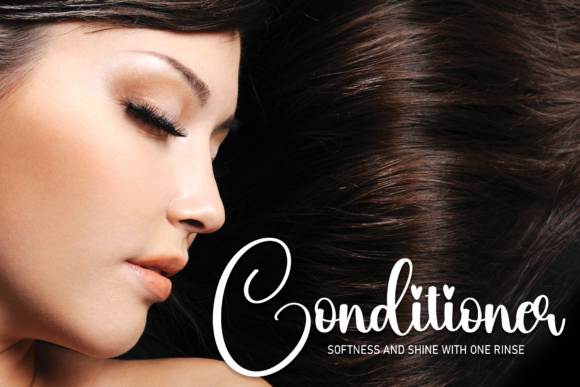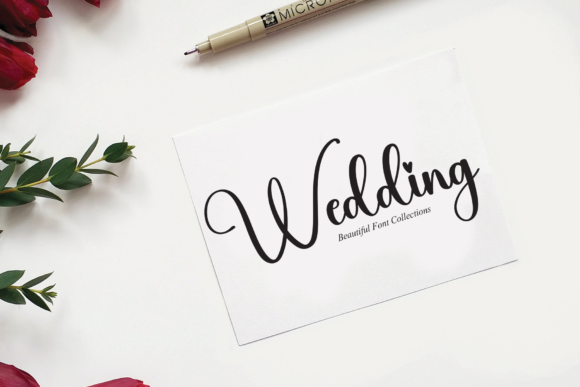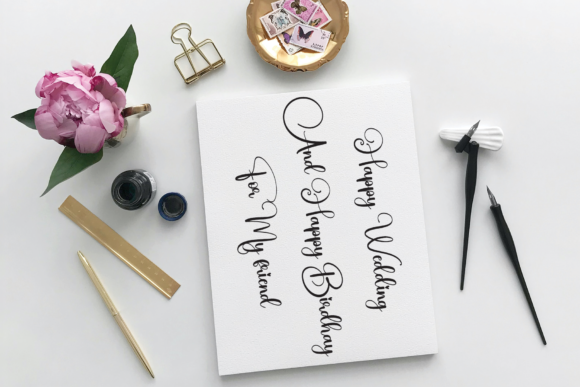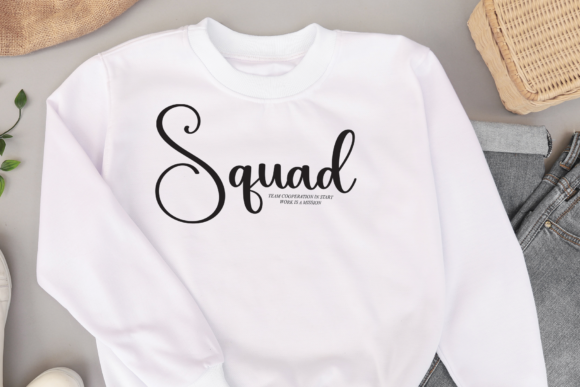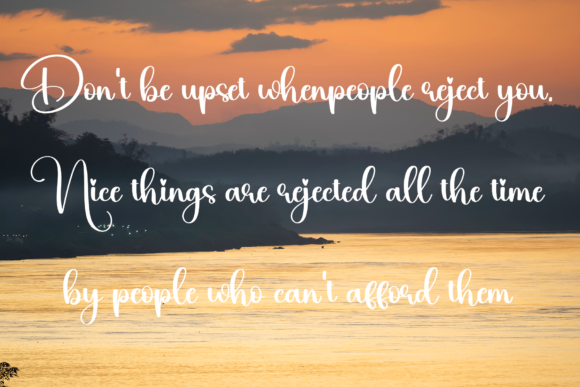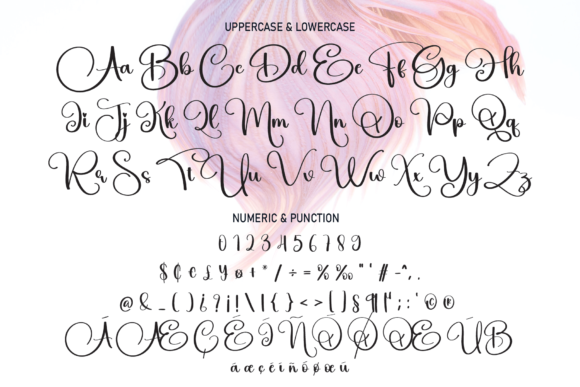
The Birth of a Masterpiece: Unveiling the Anime Font
Have you ever sat at your desk, staring blankly at a blank canvas, desperately searching for the perfect font to bring your creative project to life? For designers, finding the right font can be the difference between a mediocre piece and a masterpiece. And that’s exactly what the Anime Font offers – a symphony of curves, swashes, and lines that will elevate your work to new heights.
Designed to capture the essence of Japanese animation, the Anime Font is a stylish handwritten font that adds a touch of whimsy and sophistication to any design. With its extraordinary balance and flair, it’s the perfect choice for designers looking to add a unique twist to their work. Whether you’re creating a logo, poster, or social media graphic, the Anime Font is sure to make your design stand out from the crowd.
Anime Font Key Features
- Unique Characteristics: Anime Font features a distinctive, hand-drawn style with exaggerated lines, bold strokes, and vibrant colors, making it ideal for anime-inspired designs.
Anime Font Review
I recently had the chance to work with the Anime Font, and I must say it’s a unique and eye-catching addition to any design project. ✨ Here are some of the things that work well:
- The font’s bold and vibrant aesthetic is perfect for capturing the energetic spirit of anime and manga-inspired designs.
- It’s highly customizable, allowing you to tweak the color, size, and style to fit your project’s specific needs.
- The font is well-suited for use in headings, titles, and other prominent text elements.
- ⚠️ The font may not be suitable for body text, as it can be quite difficult to read in smaller sizes.
- ⚠️ It may not be the best choice for projects that require a more subtle or minimalist approach.
Overall, I think the Anime Font is a great addition to any designer’s toolkit. While it may not be the best choice for every project, it’s perfect for those looking to add a touch of anime-inspired flair to their designs. With a little creativity and experimentation, you can achieve some truly amazing results.
Tips for Getting the Most Out of Anime Font
Experiment with different font sizes, colors, and styles to achieve the desired effect.
Combine anime font with other design elements, such as bold lines and bright colors, to create a visually striking design.
Anime font is commonly used in:
Graphic novels and manga-style comics.
Animated logos and branding.
Pop culture-inspired posters and flyers.
Alternatives to Anime Font for Designers
Koumori
Koumori is a Japanese-inspired sans-serif font that offers a more modern and clean aesthetic compared to Anime Font. It’s ideal for use in digital products, such as mobile apps and websites, where a simple and legible font is required.
Compared to Anime Font, Koumori has a more subtle and understated feel, making it a better choice for projects that require a more professional tone. However, it still retains some of the unique characteristics of Japanese typography, such as a slightly condensed width and a distinctive x-height.
Shinonome
Shinonome is a Japanese font that is designed to mimic the look and feel of traditional Japanese typography. It features a more ornate and decorative style compared to Anime Font, with intricate details and flourishes. It’s best used in projects that require a touch of Japanese culture and tradition, such as packaging design, branding, and editorial content.